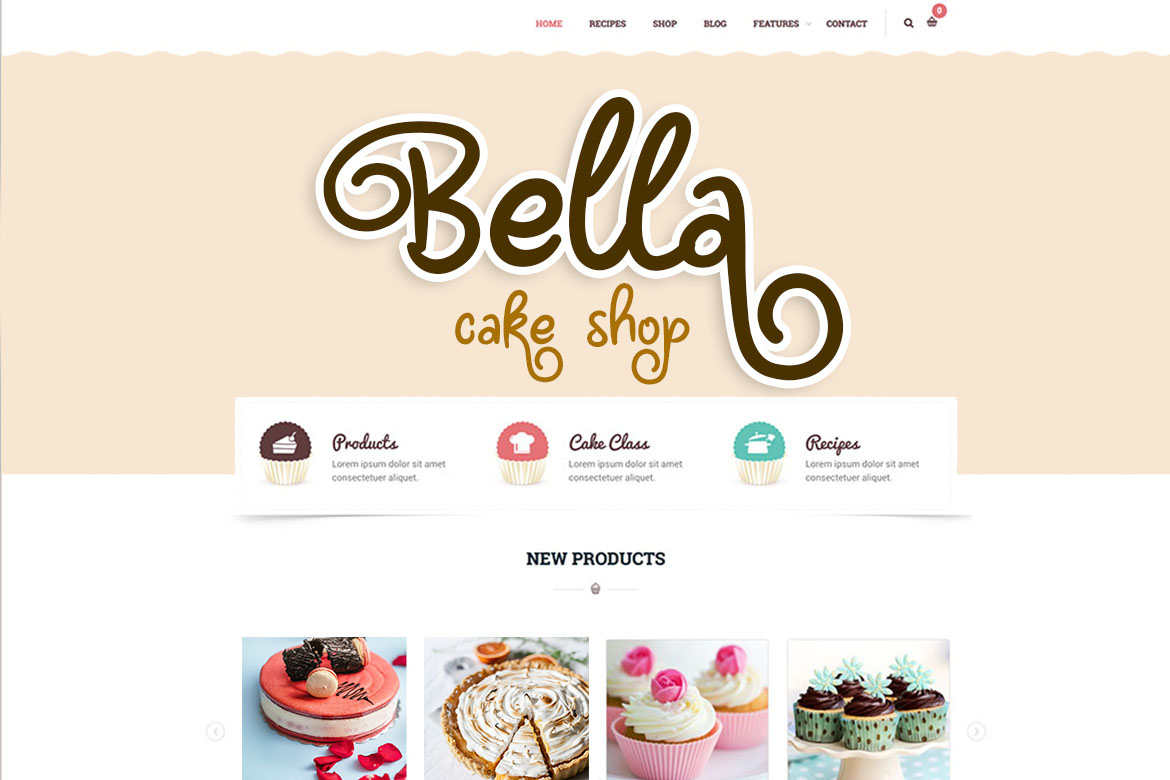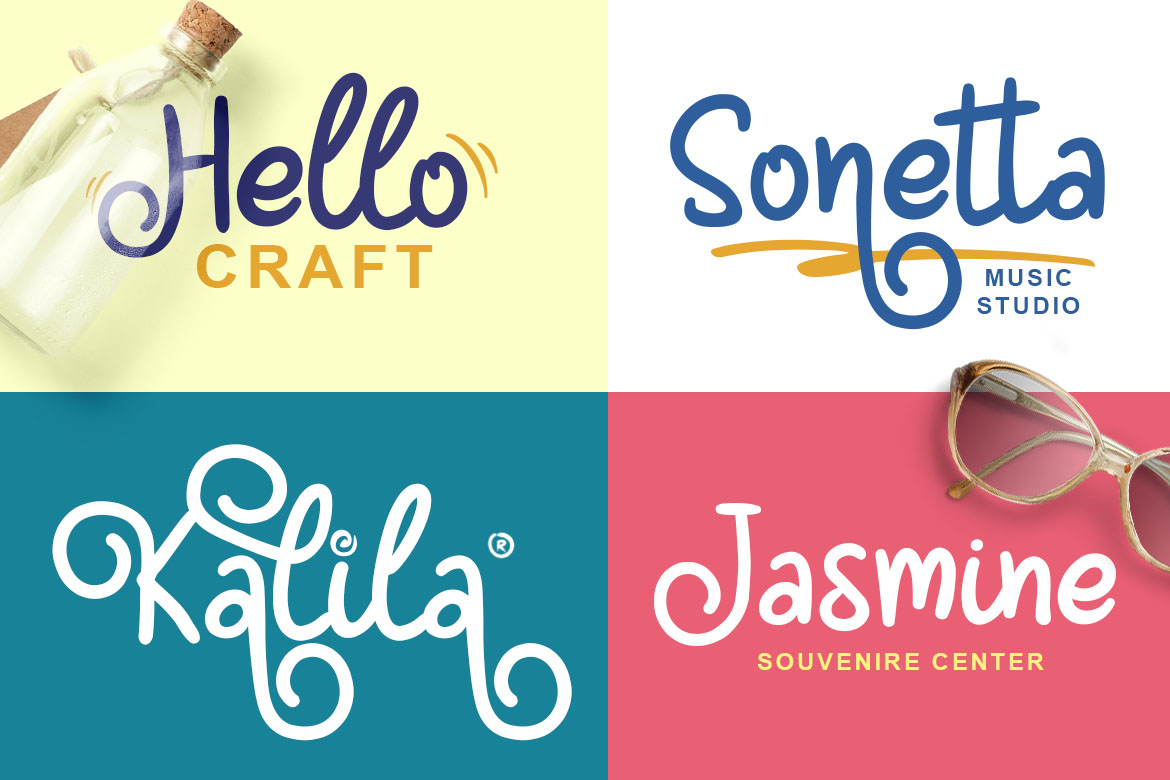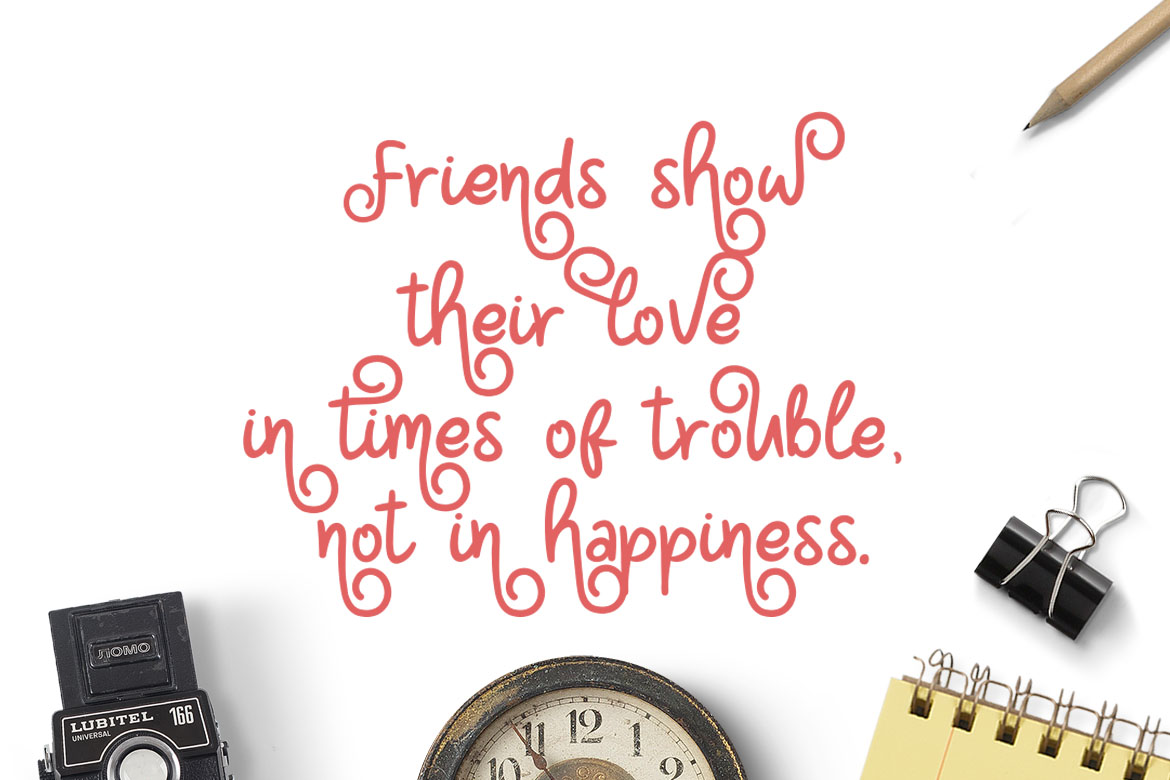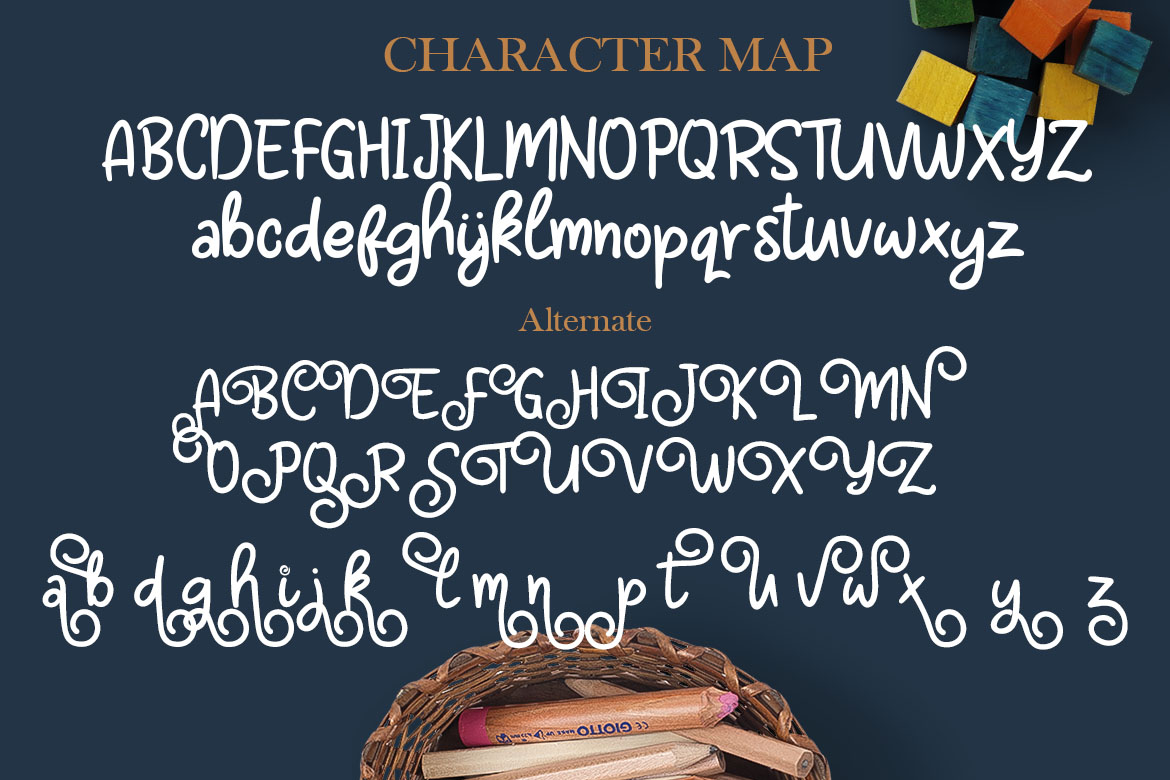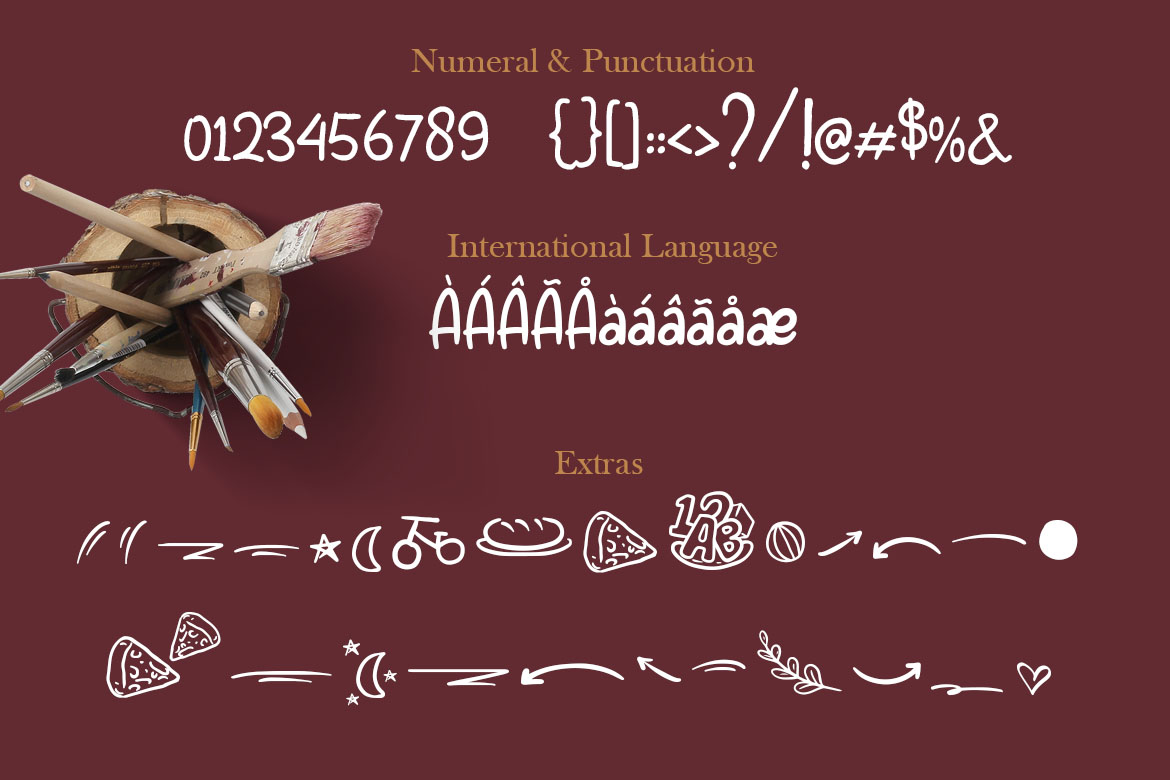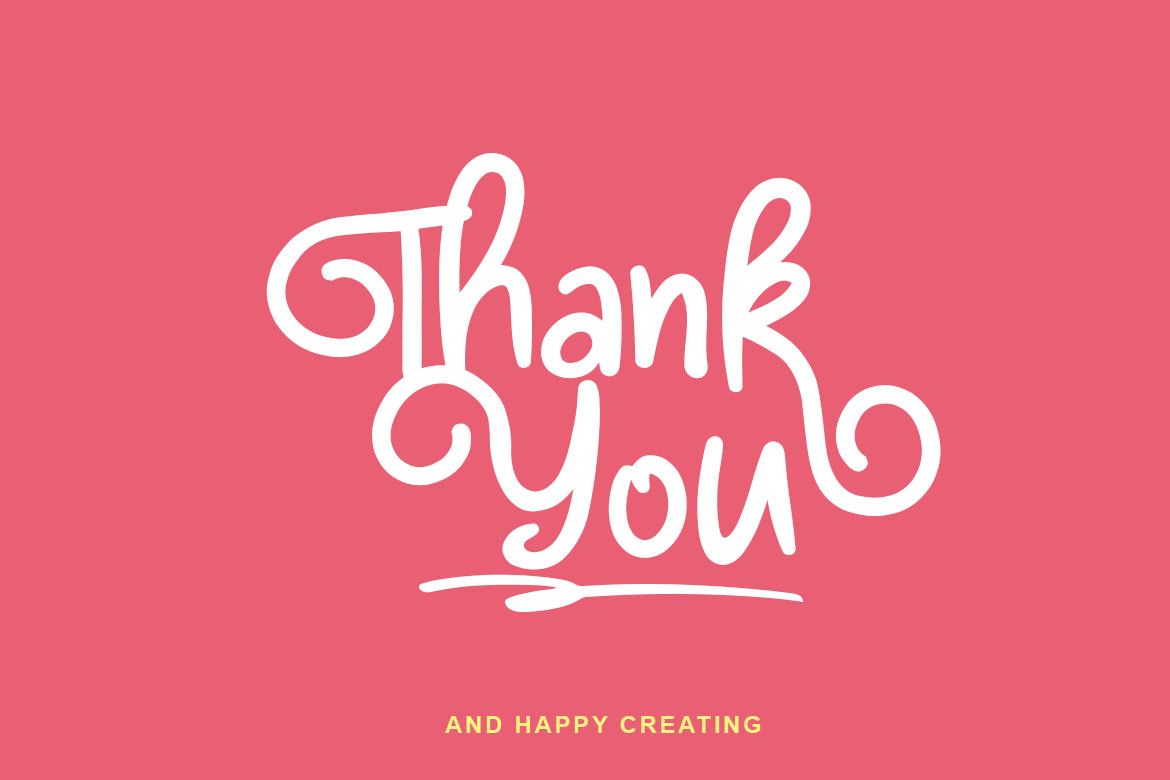
Introduction to Bunglon Chameleon Font
Bunglon Chameleon is a stunning handmade font, both natural and playful.
This font is great for fun branding projects, and other endeavors that need a clean and monoline appeal .
Key Features of Bunglon Chameleon Font